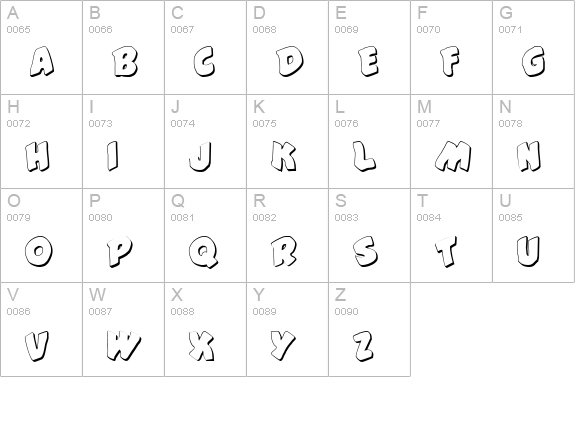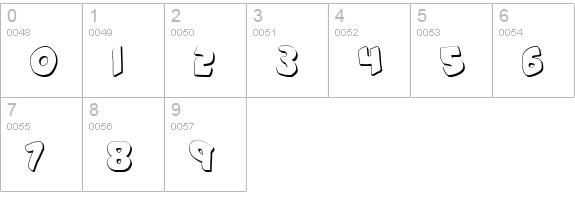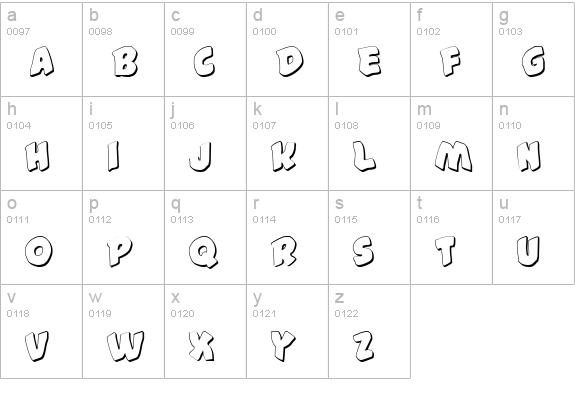
#44 Font Shadow Font Details
Introducing #44 Font Shadow font, a stylish and modern typeface that exudes a sense of sophistication and elegance. This versatile font features a sleek shadow effect that adds depth and dimension to your text, making it stand out in any design project. Best of all, #44 Font Shadow font is completely free to use! You can easily download this font for free at FontsMarket.com and start incorporating it into your projects right away. Whether you're working on branding materials, posters, invitations, or any other creative project, #44 Font Shadow font is sure to add a touch of flair and professionalism. With its clean lines and contemporary feel, this font is perfect for adding a touch of class to your designs. Don't miss out on the opportunity to enhance your projects with the striking #44 Font Shadow font – download it for free today at FontsMarket.com!